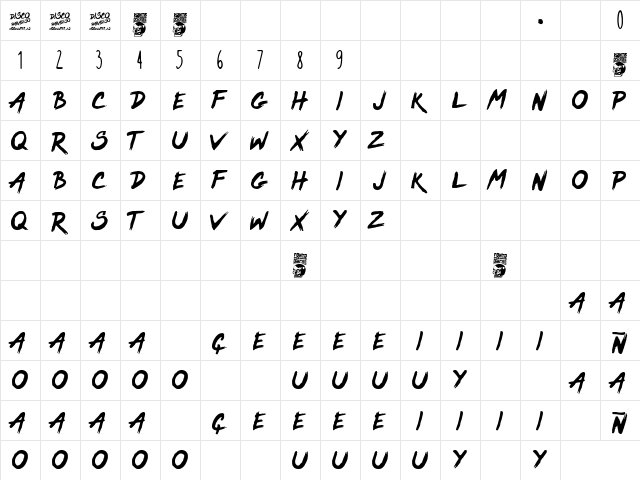
Disco Paradiso Regular
Design Context for Disco Paradiso Typeface
Disco Paradiso is a composed and adaptable typeface that performs quietly and consistently across a wide range of design contexts.
Pro Tip: Use Disco Paradiso in both headline and body roles to test its range before committing to a single application.